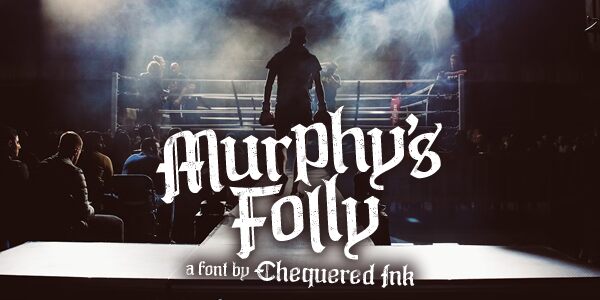
Murphy's Folly
Murphy's Folly is a modern gothic font designed by Chequered Ink. Its semi-bold weight adds a touch of boldness to any project, making it perfect for designs that require a touch of edginess. This font's unique style makes it suitable for various projects, ranging from book covers and posters to album art and logos. The gothic-inspired design will add an extra layer of sophistication to your work, making it stand out from the crowd. With Murphy's Folly, you can create designs that are both modern and timeless, adding a touch of elegance to any project.